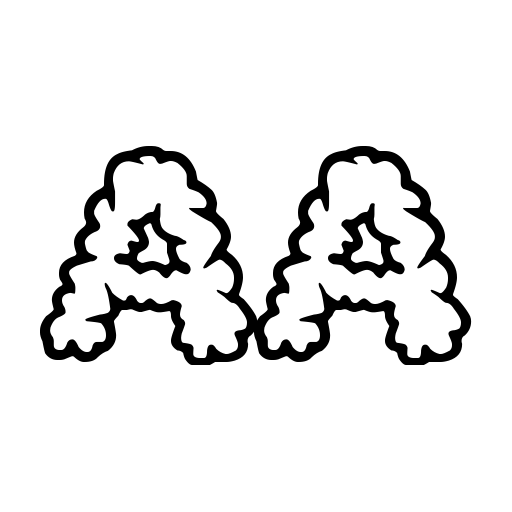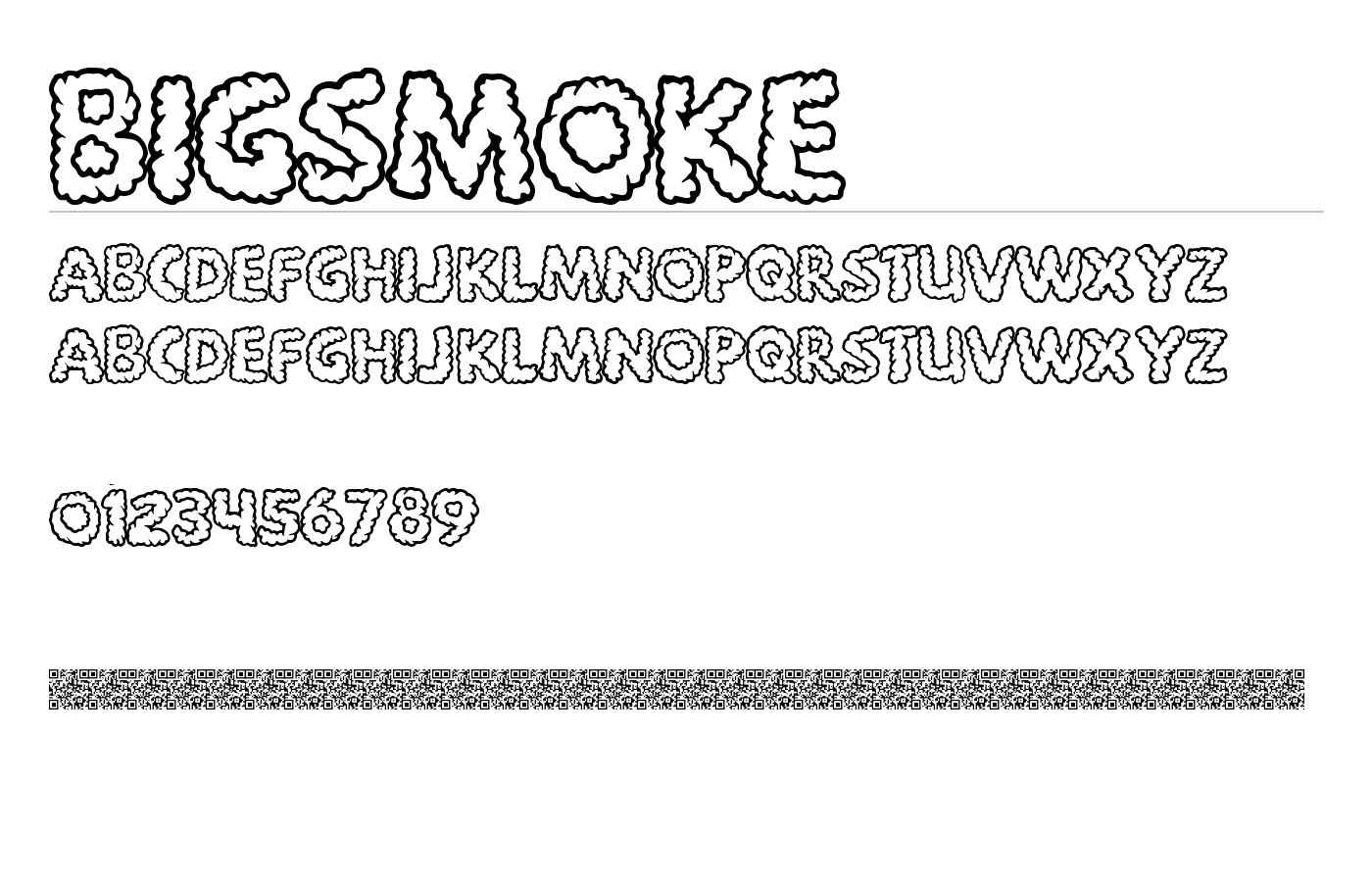
BigSmoke is a playful, bold display font characterized by its cloud-like, textured edges that give the impression of swirling smoke. Its rounded, irregular shapes create a fun and whimsical vibe, making it ideal for eye-catching headlines, posters, and designs that want to convey energy and creativity. This font is perfect for brands and projects seeking a distinctive, informal style with a strong visual impact.
BigSmoke Font
About BigSmoke Font